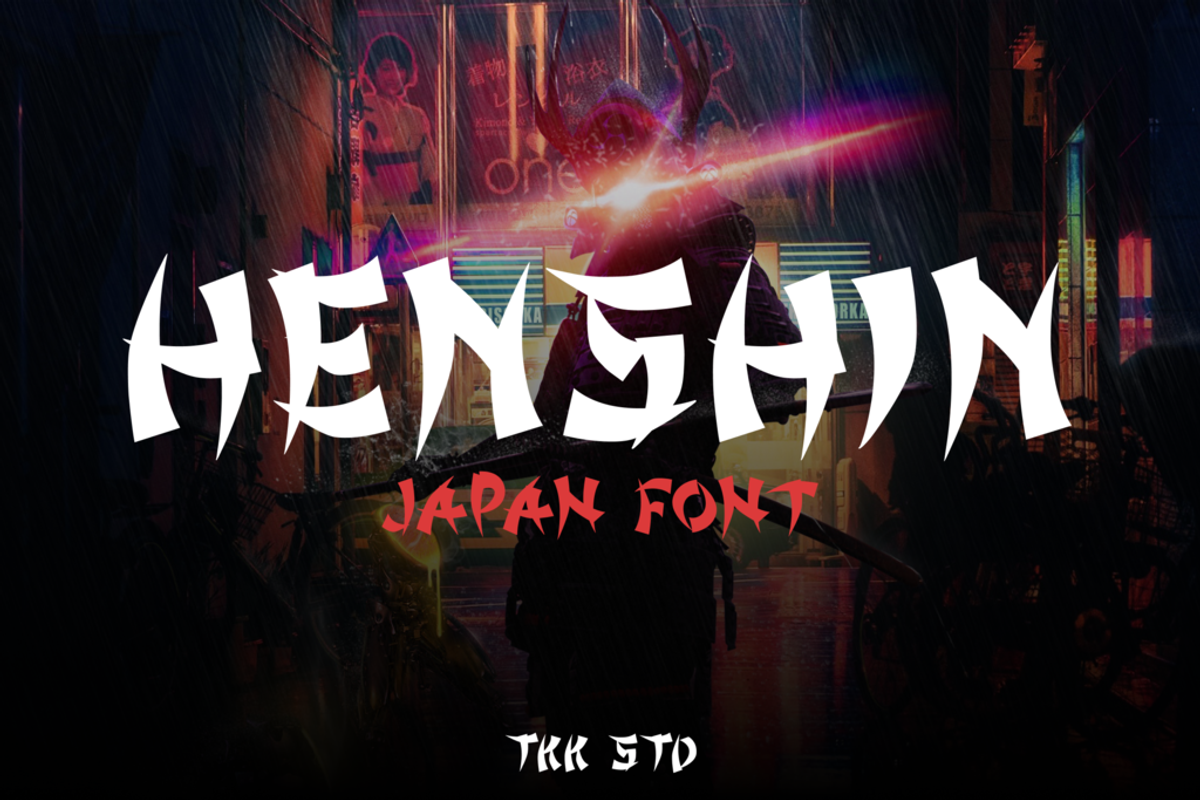
HENSHIN - Japanese Font Free Download is a bold and dynamic typeface inspired by Japanese pop culture, anime aesthetics, and retro-futuristic design. Whether you’re crafting a manga cover, video game title, streetwear brand, or digital art project, this font delivers high-energy impact with an unmistakable Eastern flair.
HENSHIN - Japanese Font Free Download features stylized characters that fuse traditional kanji-inspired strokes with modern, geometric structure. It’s perfect for posters, logos, merchandise, or anything that wants to channel the intensity of a shonen battle scene or the sleekness of cyberpunk Tokyo.
This font thrives in neon palettes, glitch effects, and high-contrast layouts. Whether you’re shouting “henshin!” or designing your own visual transformation, it gives your typography cinematic power.
Bold, brave, and born to stand out—HENSHIN isn’t just a font; it’s a full-on metamorphosis for your design.